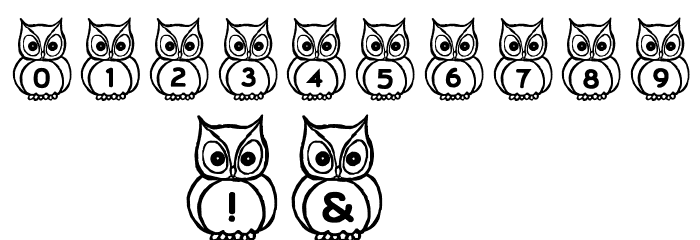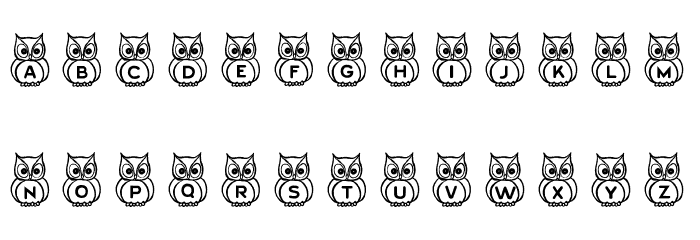
What a Hoot! Font
What a Hoot! Description
This playful and whimsical font features each letter and number encased within a stylized owl design. The owls are cartoon-like, with large eyes and a simple outline, creating a fun and engaging visual experience. The letters and numbers are bold and clear, ensuring readability while maintaining the decorative theme. This unique design is perfect for projects that require a touch of creativity and charm, such as children's books, educational materials, or playful branding. The font balances decorative elements with functionality, making it versatile for various uses.
A whimsical font with letters and numbers inside cartoon owl designs from Decorative fonts.
- Proposed Projects: Ideal for children's books, educational materials, playful branding, and creative invitations.
- Overall Style: Playful, Whimsical
- Use Case: Logos, Headlines, Decorative text